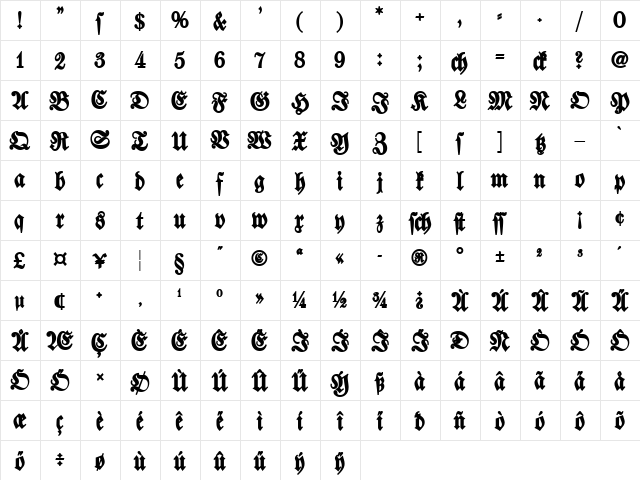
Walbaum-Fraktur Bold
Design Context for Walbaum-Fraktur Typeface
Walbaum-Fraktur draws on the rich tradition of blackletter calligraphy, with dense, angular strokes that evoke medieval manuscripts and old-world craftsmanship. The heavy weight commands attention and anchors typographic hierarchies.
Well-suited to band logos, craft beer branding, tattoo lettering, and heritage-themed identities.
Font Pairing: Pair with a clean neutral sans-serif for body copy to let Walbaum-Fraktur's character lead without overwhelming the composition.
Pro Tip: Use Walbaum-Fraktur sparingly at large sizes. Even a single word set in blackletter can define the visual register of an entire design.